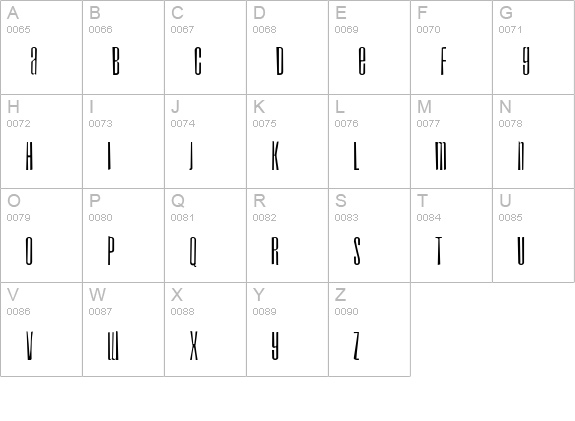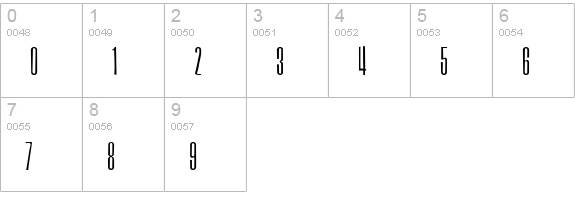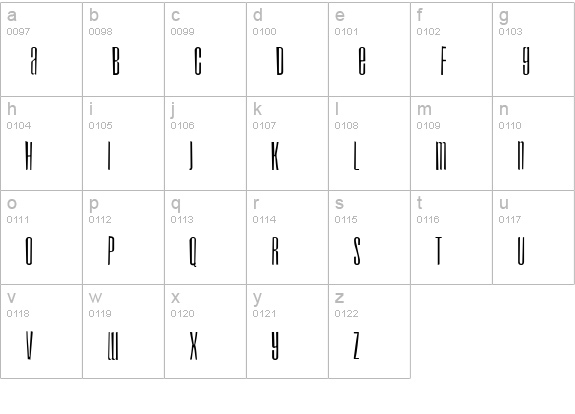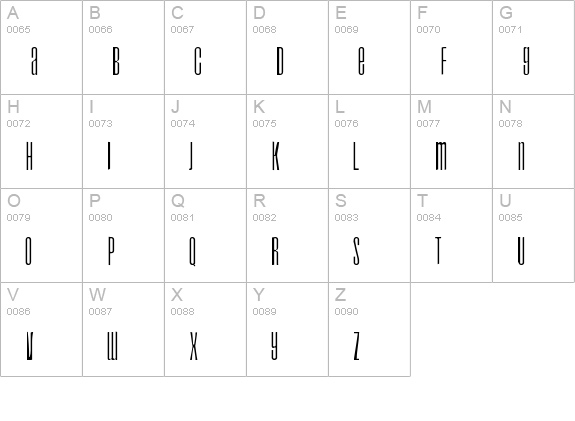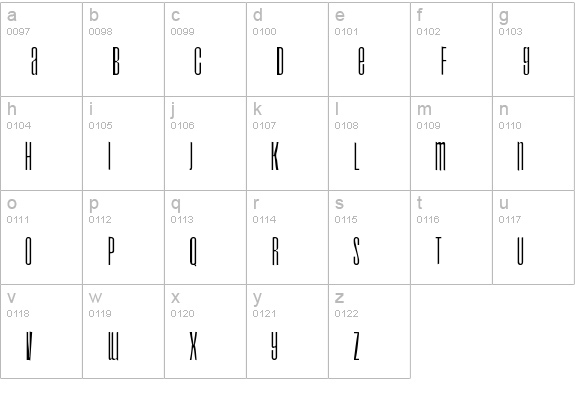
Droid Gaunt font is a modern and sleek typeface that exudes sophistication and elegance. Its clean lines and sharp edges make it perfect for a wide range of design projects, from branding to editorial design. The font's unique style is sure to make your text stand out and grab attention. What's even better is that Droid Gaunt font is available for free download at FontsMarket.com. This means you can easily access this versatile font and use it in both personal and commercial projects without any restrictions. Don't miss out on this amazing opportunity to enhance your designs with the timeless appeal of Droid Gaunt font.